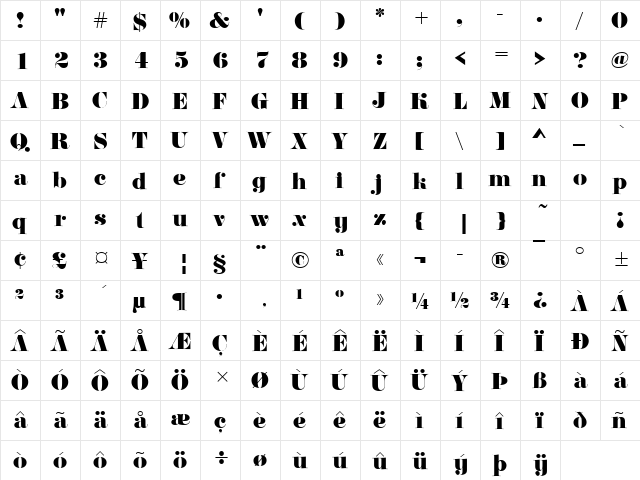
URWCapellaD Regular Font Preview
URWCapellaD Regular
Design Context for URWCapellaD Typeface
URWCapellaD is a composed and adaptable typeface that performs quietly and consistently across a wide range of design contexts.